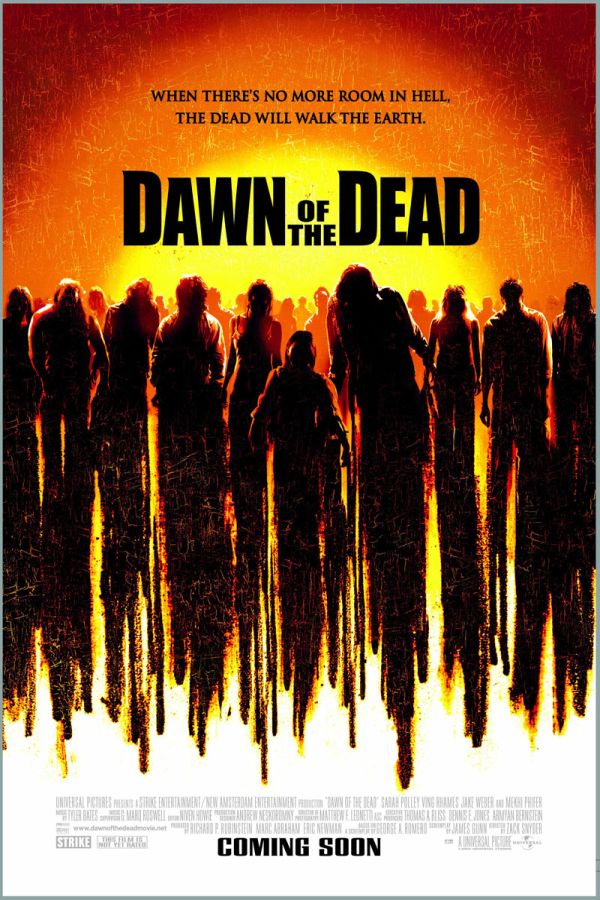
Dawn of the Dead Font
Fonts in UseDawn of the Dead is a 1978 horror film directed by George A. Romero. It follows a group of survivors who take refuge in a shopping mall during a zombie apocalypse.
The font used for the movie title in the poster is probably Impact, with serifs added to some letters. More details about Impact can be viewed here.